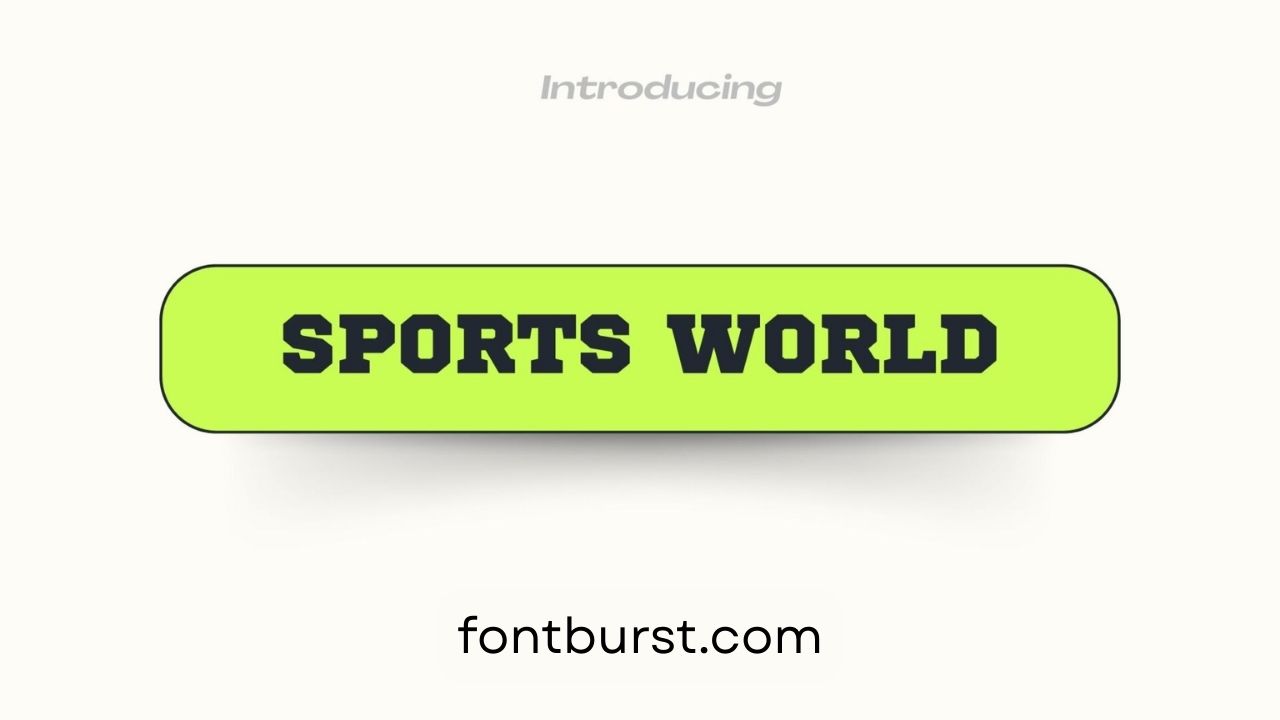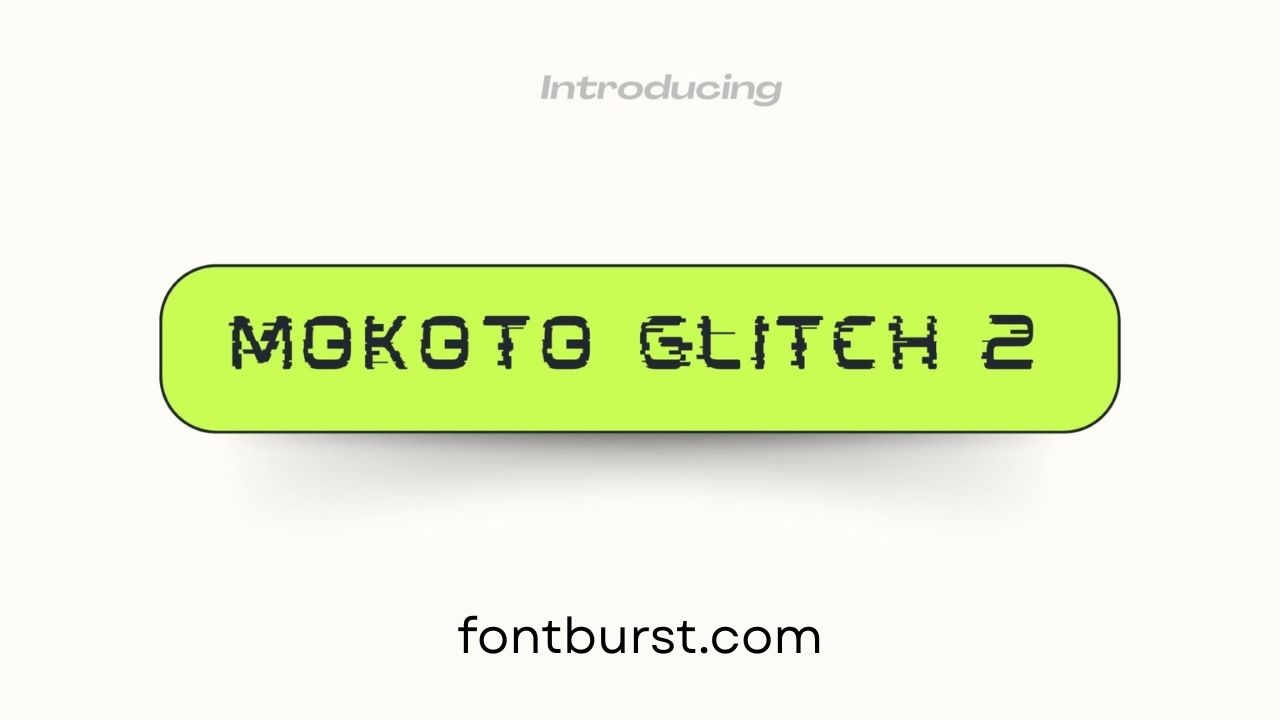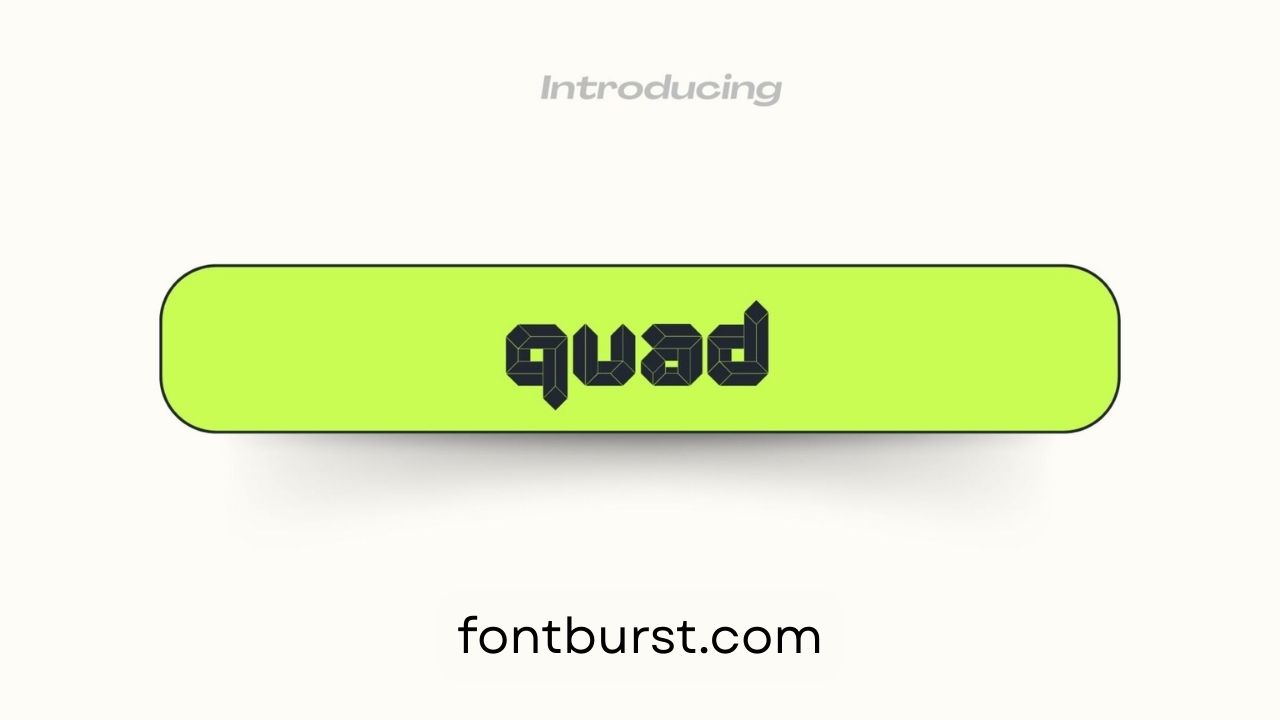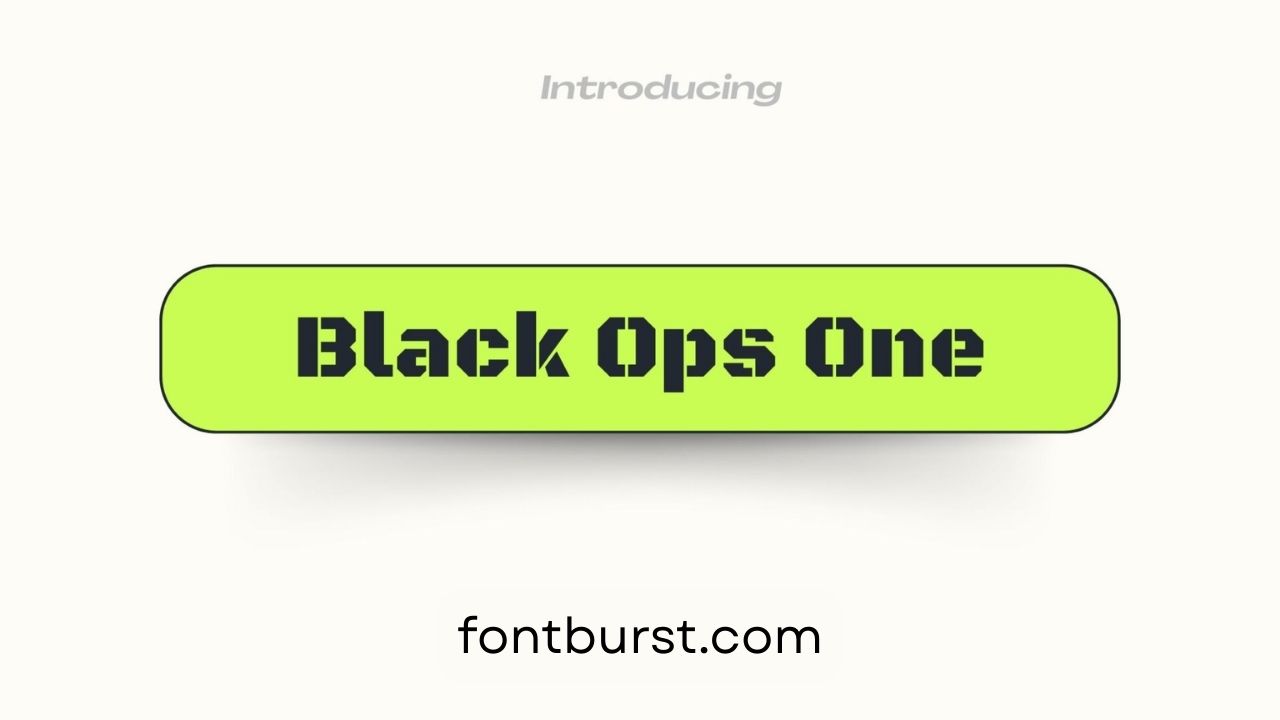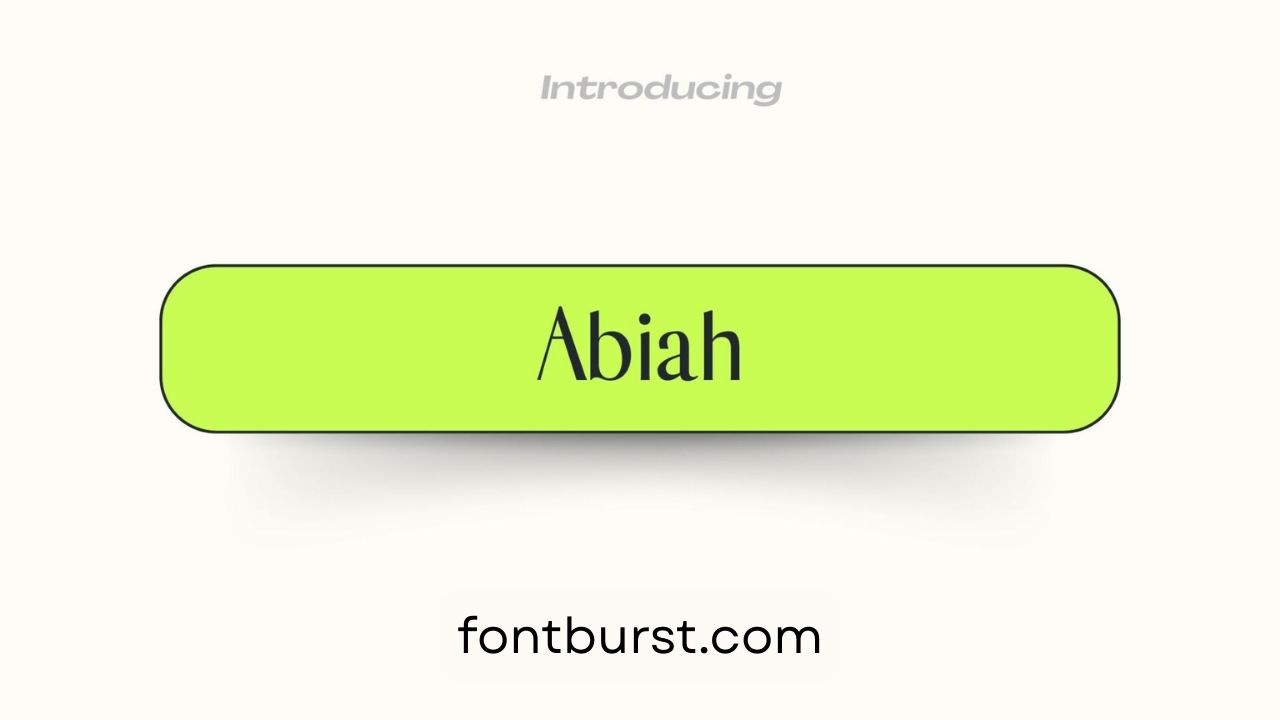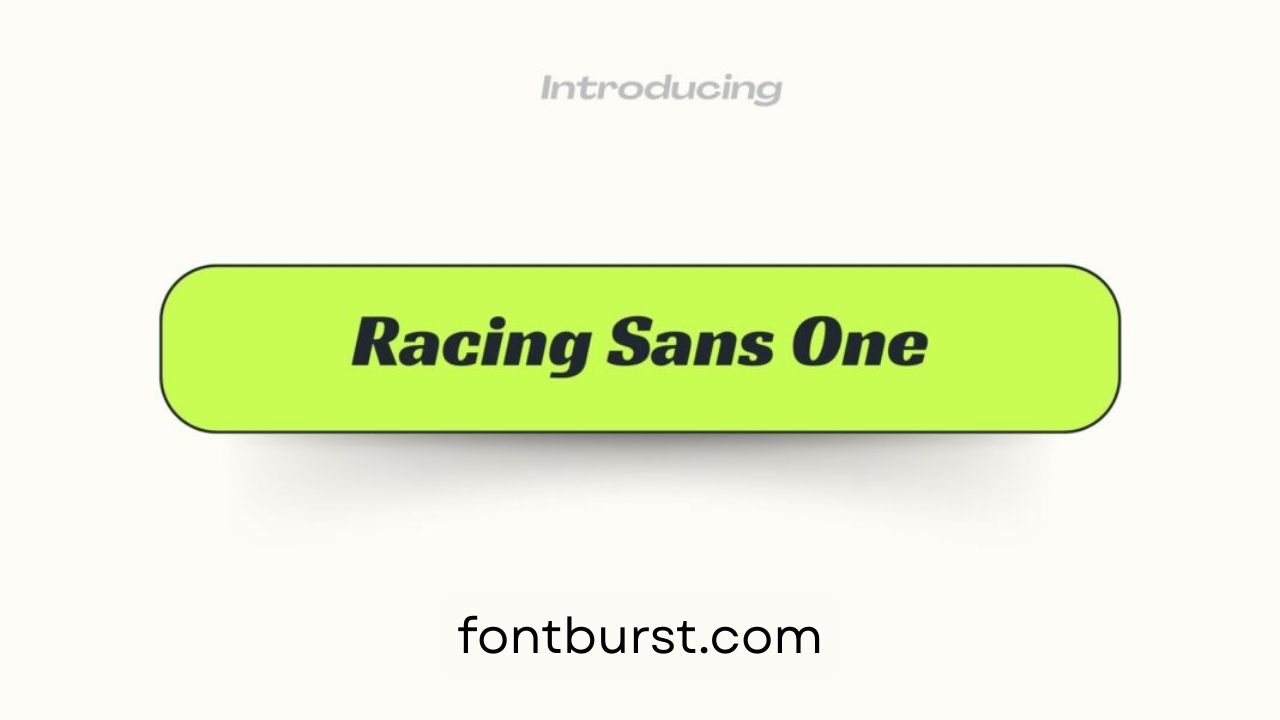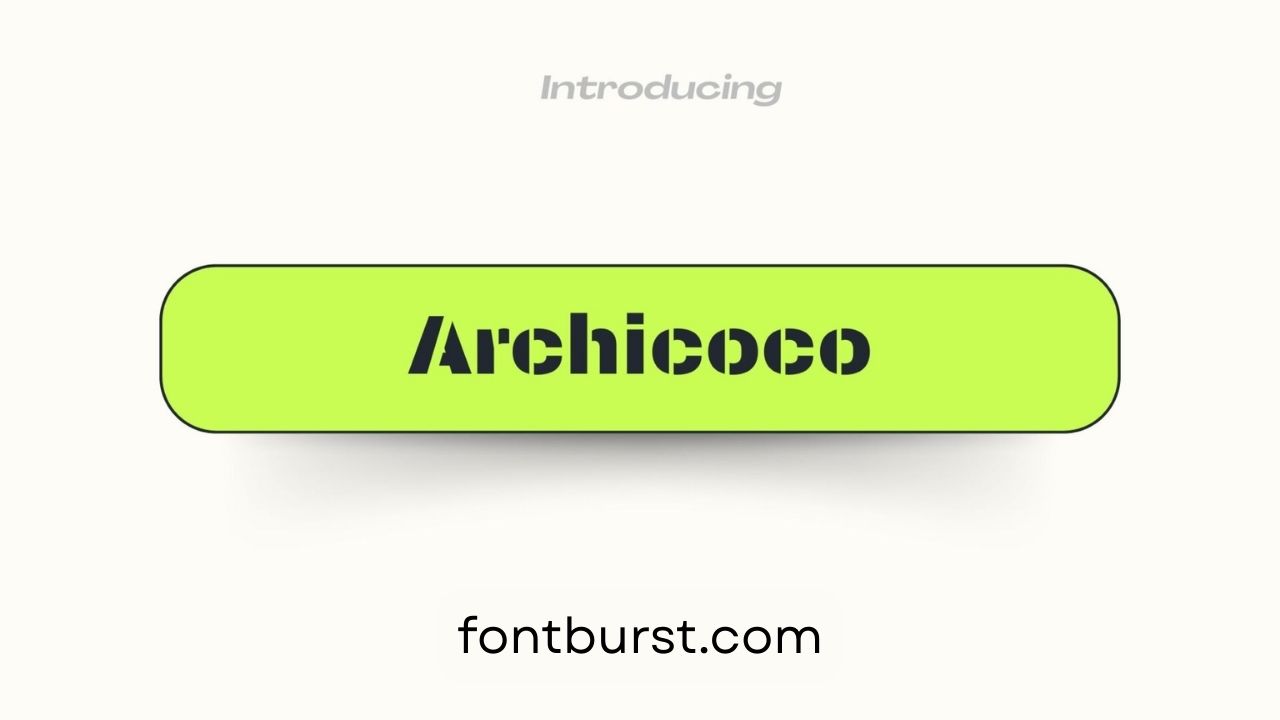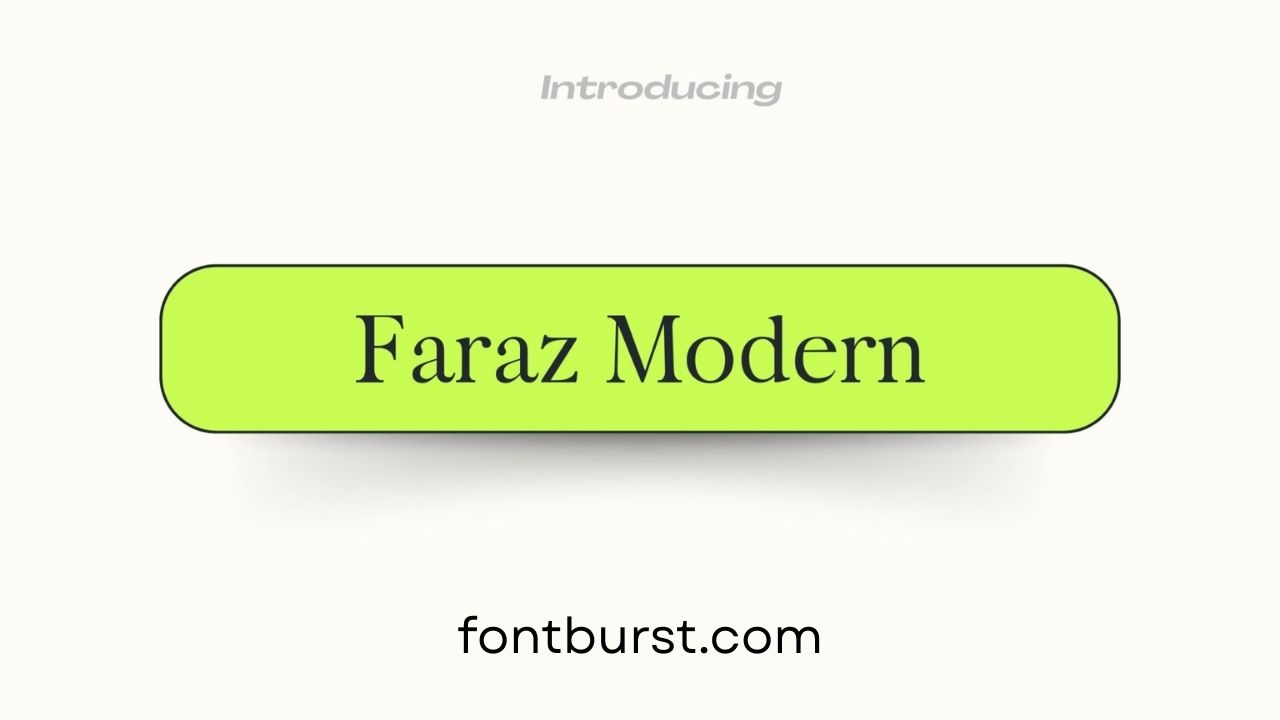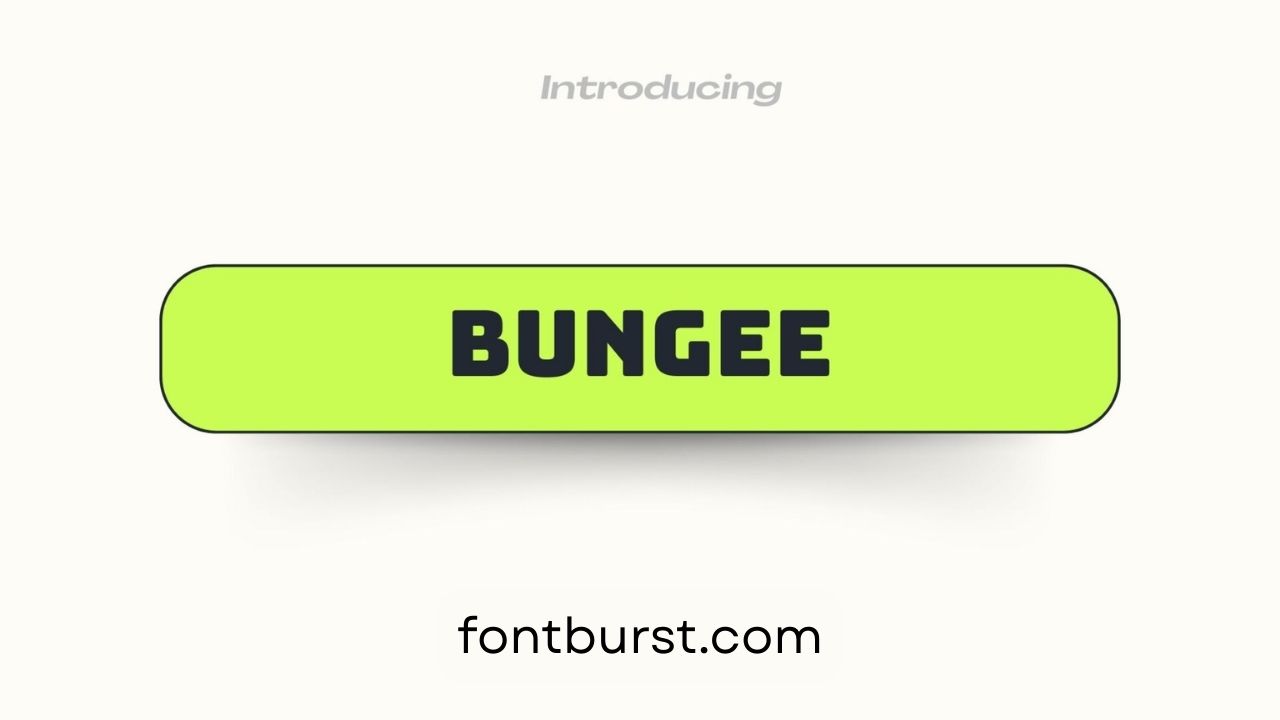
10 Sports Fonts in Canva
Are you looking for bold sports fonts to make your designs stand out? Whether you’re creating posters for your team, designing event flyers, or simply want an energetic look, sports fonts can make a huge difference. Canva offers a range of fonts that perfectly capture the high-energy and competitive spirit of sports.
In this list, we’ve gathered 10 sports fonts in Canva that will give your designs that winning edge. Each font has its own unique style, perfect for various sports-themed projects. Let’s dive into some bold choices that will help you score big in your next design.
From glitchy modern fonts to classic, robust typefaces, Canva has something for every sports fan. Get ready to find the perfect font to bring your sports designs to life!
10 Best Sports Fonts in Canva
1. Sports World Font in Canva
The Sports World Font gives off a strong, traditional sports vibe, perfect for team logos and apparel. Its bold, all-caps style with thick lines ensures readability from a distance, making it a go-to choice for team jerseys and scoreboards.
2. Mokoto Glitch 2 Font
If you’re going for a futuristic look with a twist, the Mokoto Glitch 2 Font has you covered. This glitch-inspired font has a unique, high-tech style that adds movement and depth to any sports-related graphic, perfect for e-sports or cutting-edge designs.
3. Quad Font
The Quad Font offers a sleek, minimalistic feel with clean lines and rounded edges. It’s perfect for modern sports design, especially in advertisements or branding that need a polished and professional look without losing the sports vibe.
4. Black Ops One Font
The Black Ops One Font exudes strength and toughness with its heavy, military-inspired style. Ideal for competitive sports events, it delivers a bold presence for posters, banners, and gear, commanding attention with its authoritative appearance.
5. Abiah Font
The Abiah Font blends traditional sports typography with a modern twist, featuring sharp angles and strong lines. It’s versatile and works well in a variety of sports designs, from apparel to branding. Its slightly edgy look gives it a fresh take on sports fonts.
6. Racing Sans One Font
For those in the racing world, the Racing Sans One Font brings speed and excitement. Its italicized, streamlined design creates the perfect vibe for motorsports or any fast-paced sport. It adds motion to your designs and is great for trackside signage or promotional material.
7. Archicoco Font
The Archicoco Font is a playful, rounded font that is great for youth sports designs or casual sports events. It has a friendly feel, perfect for family-friendly sports festivals or kid’s team logos. Its approachable design makes it a fun choice for more lighthearted projects.
8. Faraz Modern Font
The Faraz Modern Font brings a sleek and sophisticated look to sports design. With clean, sharp lines, it’s ideal for modern branding and minimalistic sports projects. Whether you’re designing for high-end sports apparel or futuristic sports events, this font will fit right in.
9. Bungee Font
With its bold and blocky look, the Bungee Font is excellent for urban sports and street-style designs. Its wide, all-caps lettering grabs attention and works perfectly for sports signage, large-scale posters, and trendy sportswear.
10. Costa Rica Font
The Costa Rica Font offers a more relaxed, tropical vibe, ideal for beach sports or summer tournaments. Its casual yet bold style works well for volleyball, surfing events, or any fun sports gathering by the ocean, giving off a laid-back but still sporty feel.